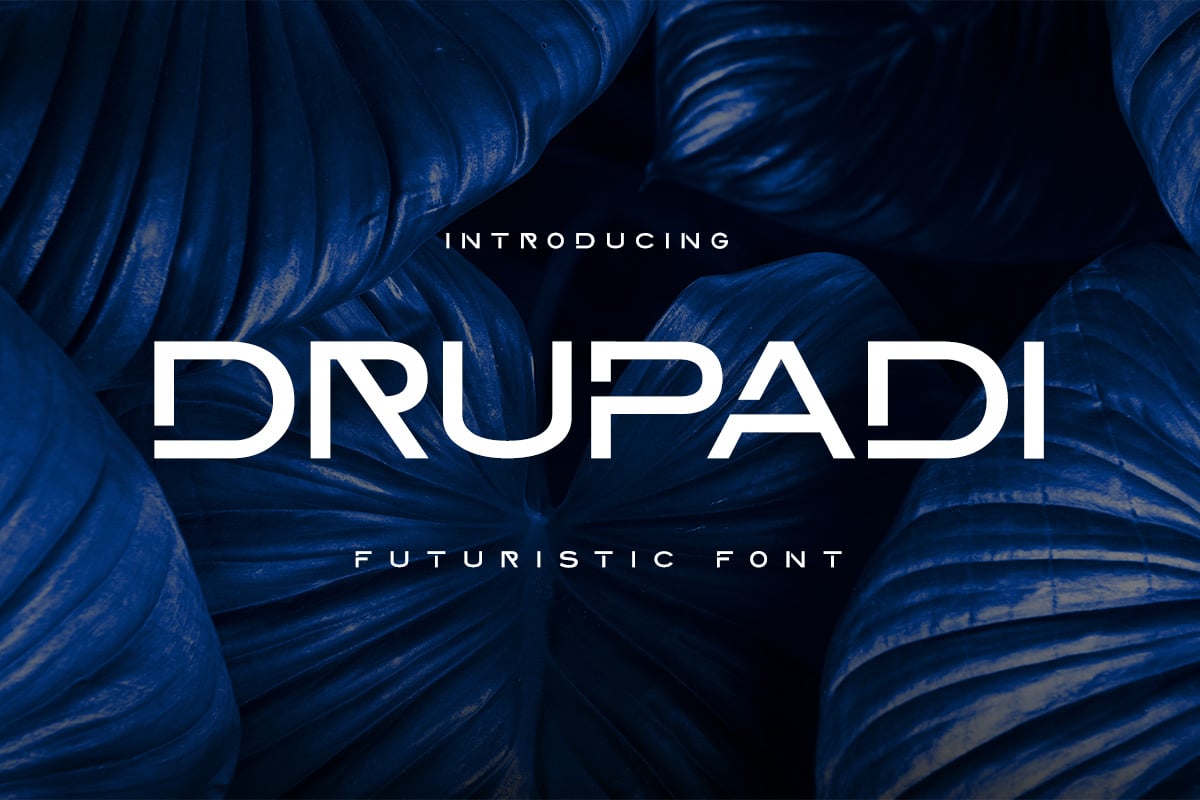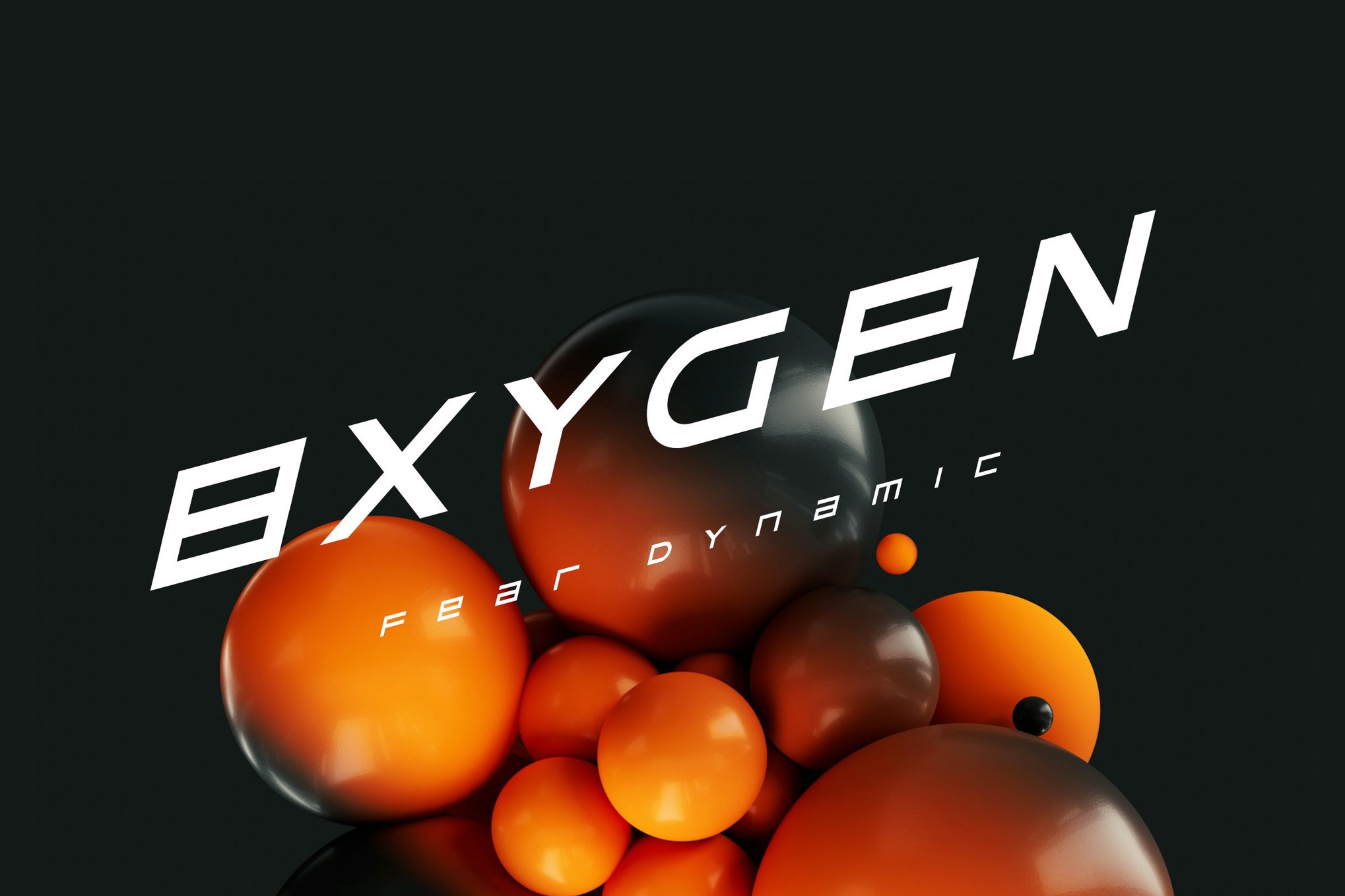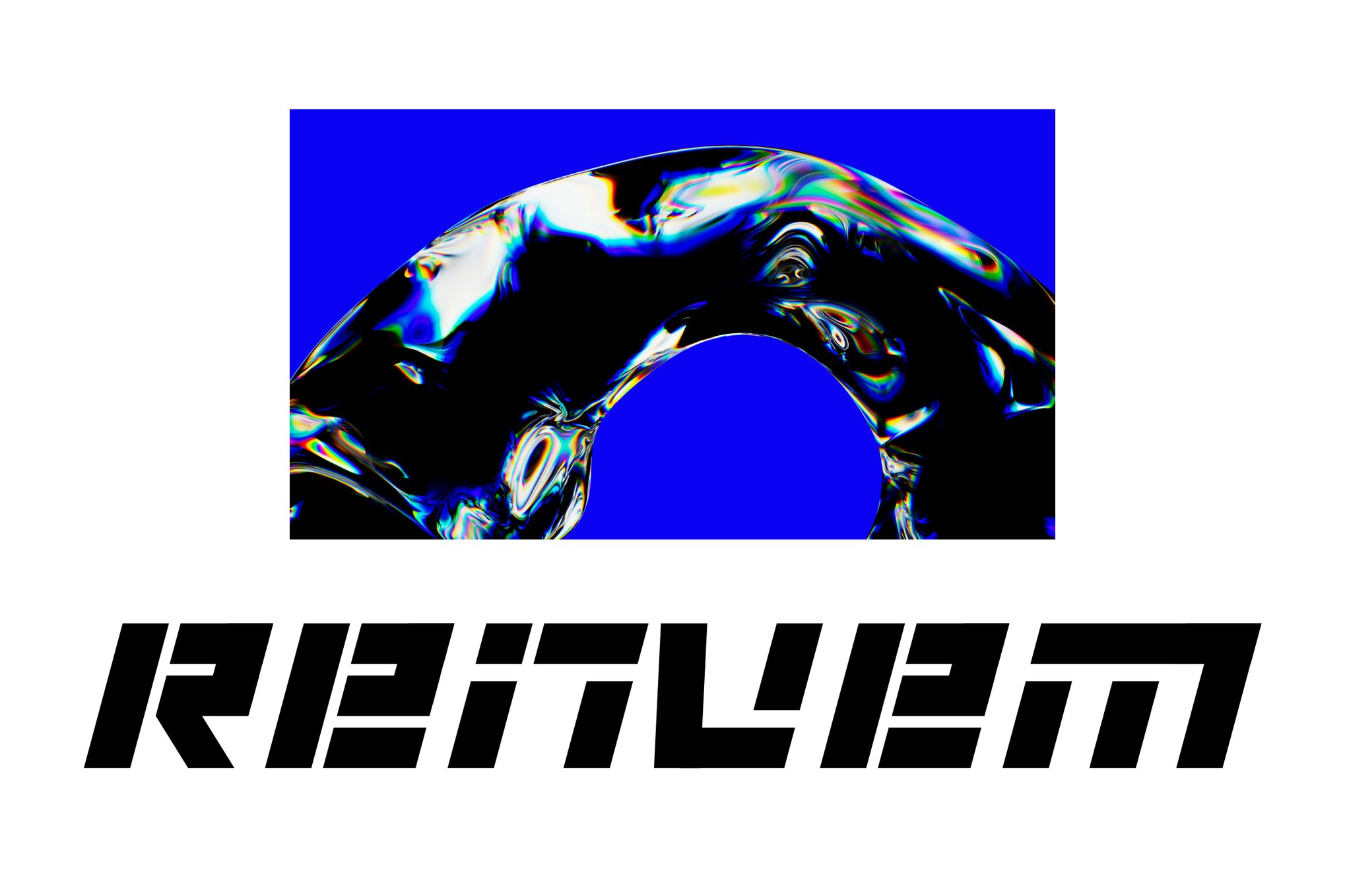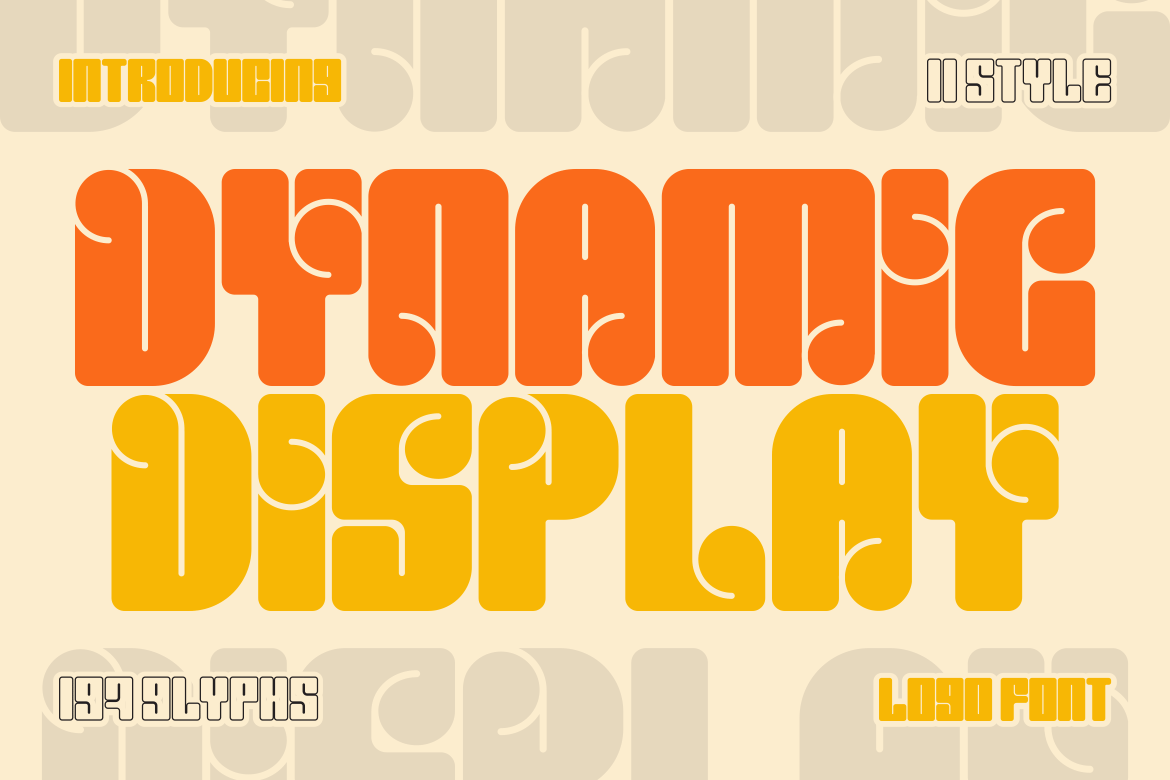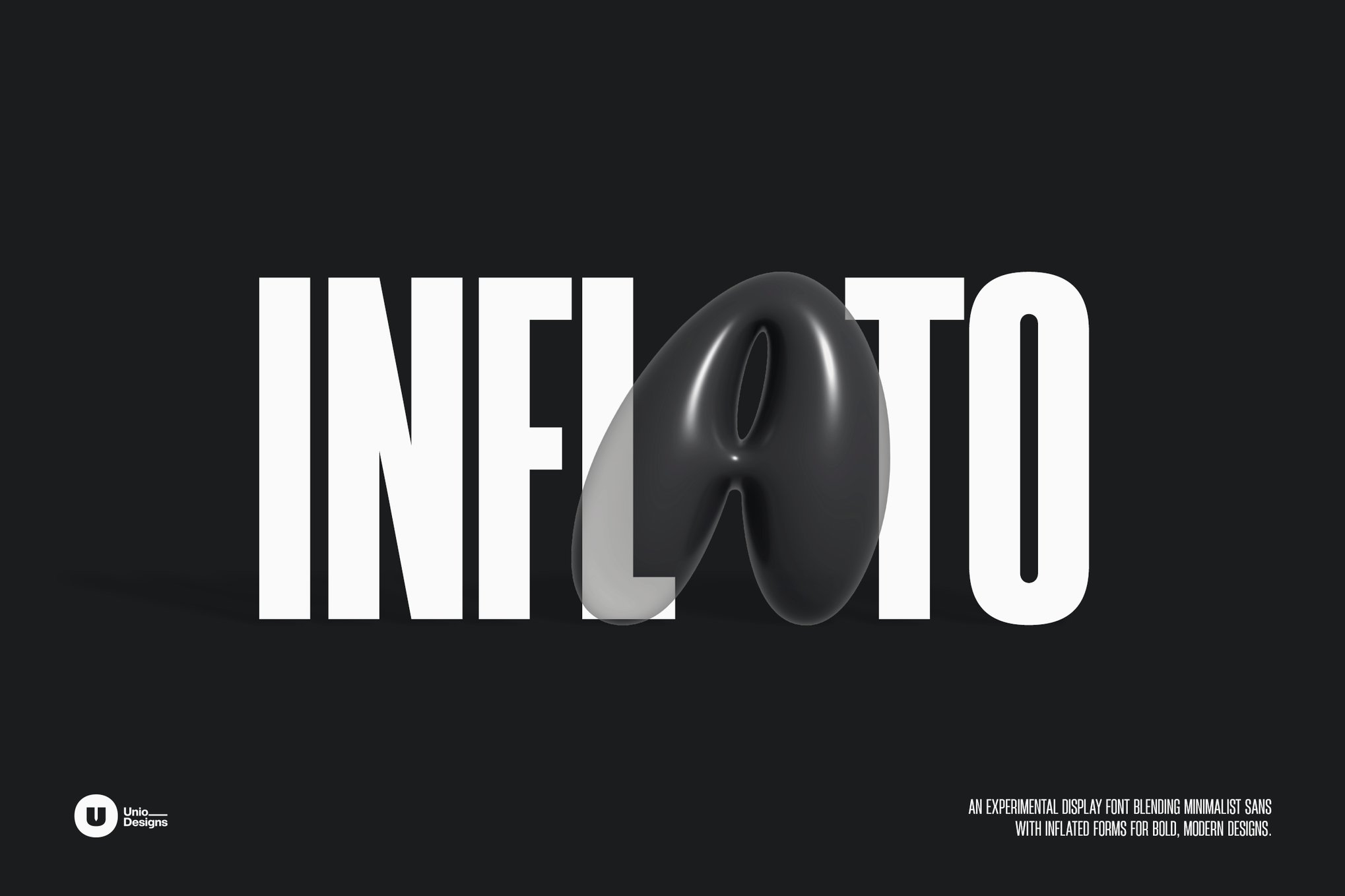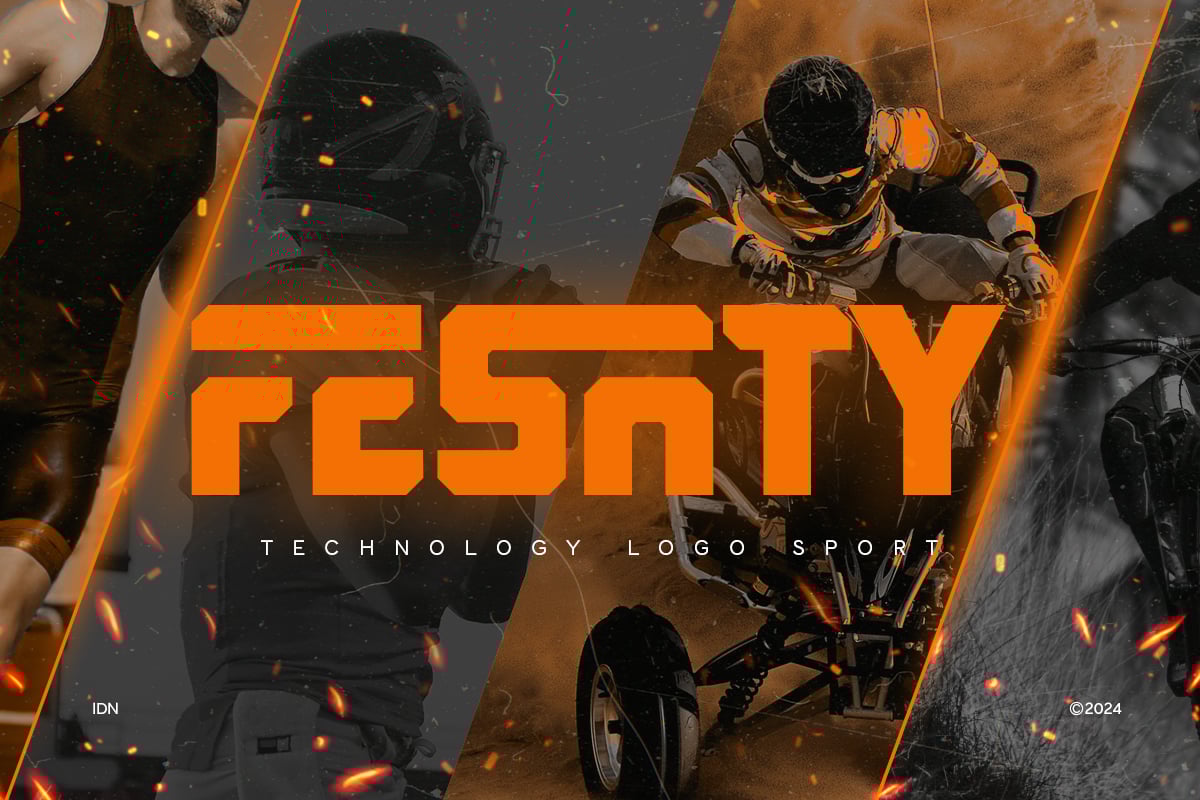
20+ Dynamic Fonts for Fluid Typography Designs
Dynamic fonts are all about capturing motion and fluidity in typography.
Unlike static typefaces, these fonts use flowing lines and flexible shapes to create a sense of movement within each letter. The result is a style that feels energetic, artistic, and visually engaging.
They’re a great choice for branding, posters, and digital graphics where visual flow plays a key role.
In this collection, you’ll find some of the best dynamic fonts for fluid typography designs. These fonts are perfect for adding motion, style, and a contemporary feel to your creative work.
Drupadi – Futuristic Dynamic Font
Drupadi is a dynamic font that offers a strong, modern look, ideal for eye-catching titles and striking posters. Its bold design makes it perfect for various creative projects, bringing a sleek, forward-thinking vibe to any text. This font is ideal for making your content truly stand out.
Davcos – Dynamic Speed Font
FEAR Dynamic – Modern Dynamic Font
Renvem – Futuristic Dynamic Font
Dynamic Display – Bold Logo Font
This is a vibrant and engaging typeface designed to elevate your projects with a playful twist. Featuring unique cut-outs and a psychedelic flair, it boasts 199 glyphs suitable for diverse applications—from logos to posters. This font offers versatile styles, including uppercase, lowercase, and numerals, making it perfect for adding personality to branding and creative works.
Inflato – Sans & Inflated Font Duo
Inflato is a bold and creative font duo that merges soft, inflated letterforms with structured sans-serif glyphs, perfect for modern design. Its unique blend of geometric shapes and artistic curves offers versatility in digital and print media. With alternative characters and multi-language support, Inflato is ideal for posters, logos, and more, sparking imagination and pushing creative boundaries.
Fesaty – DynamicTechnology Logo Font
Fesaty is ideal for those in the sports and tech industries, blending bold, futuristic elements with sleek curves and angular forms. This eye-catching font is perfect for logos and branding, offering unique ligatures and multilingual support. Available in multiple formats, Fesaty ensures your design captures the energetic essence of modern innovation.
FF Moon – Thin Dynamic Font
Planet Nebula – Futuristic Dynamic Font
Planet Nebula is a dynamic, futuristic font featuring bold geometric shapes and a sci-fi aesthetic. Ideal for posters, logos, and editorial layouts, this versatile display sans serif includes unique ligatures and creative alternates. The cool and creative design makes it perfect for digital and print projects.
FF Robot – Creative Dynamic Font
This font offers a versatile design ideal for ads, branding, and titles. Available in both Truetype and Opentype formats, it features regular weight with uppercase, lowercase, and multilingual characters. This dynamic font brings innovation to your projects while giving them a cool, edgy vibe.
Groutpix Flow – Slab Serif Font
Groutpix Flow is a slab serif font with a dynamic and modern design, featuring clean lines and bold strokes perfect for capturing attention. Available in Regular and Italic weights, it includes Truetype, Opentype, Woff, and Woff2 file types, making it versatile for headlines, logos, branding, and more. Its geometric proportions ensure a timeless appeal.
Vemanem Pro – Trendy Dynamic Font